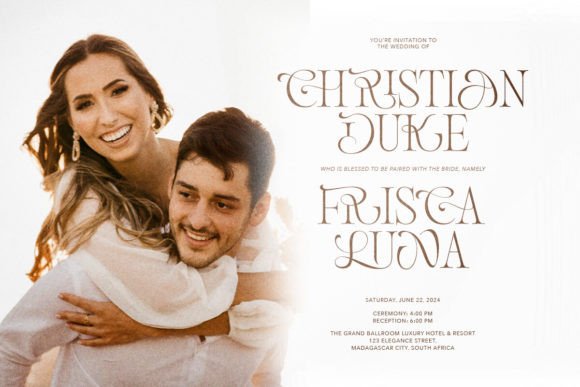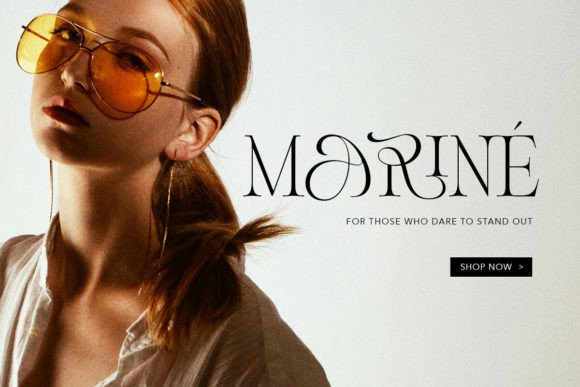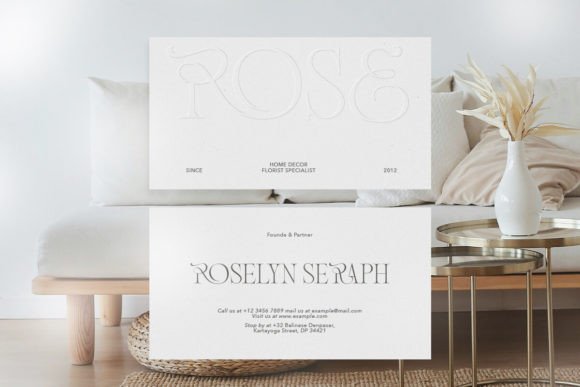
Introduction to Luxury Charm Font
As a designer, you know that finding the perfect font can be the difference between a project that shines and one that falls flat. Remember that moment when you stumbled upon the perfect typography for a client’s logo, and it elevated their entire brand? That’s the magic of a well-chosen font. For your next creative project, consider the Luxury Charm Font – a stunning serif font that exudes luxury and sophistication.
What sets Luxury Charm Font apart is its unique blend of classic and modern elements. The all-caps serif uppercase letters are timeless, while the stylish modern serif lowercase letters add a touch of elegance. Plus, the beautiful ligatures that combine two characters between lowercase and uppercase add a level of intricacy and delicacy that’s hard to find in other fonts. Whether you’re working on a logo, branding, or even a wedding invitation, Luxury Charm Font is sure to impress.
Key Features of Luxury Charm Font
- Unique blend of elegance and sophistication, making it perfect for high-end creative projects.
- High-quality design with intricate details and ornate flourishes, ideal for luxury branding and packaging.
- Designed to evoke a sense of luxury and sophistication, making it perfect for high-end design projects.
Honest Review: Luxury Charm Font
I recently came across the Luxury Charm Font, and I was excited to give it a try for my next creative project. The font is a high-quality design resource that’s perfect for adding a touch of elegance to any design.
What works well: ✨ The Luxury Charm Font has a transparent background, which makes it easy to customize and integrate into any design. The font itself is beautifully crafted, with intricate details that add a level of sophistication to any text. The free download is also a major plus, making it accessible to designers of all levels.
Here are some key features that I love about the Luxury Charm Font:
- Beautifully crafted, high-quality design
- Perfect for creative projects that require a touch of elegance
⚠️ Limitations: One potential issue I’ve encountered is that the font may not be compatible with all operating systems or software. Additionally, the font’s intricacies may make it difficult to read in certain contexts.
Overall, I’m impressed with the Luxury Charm Font. It’s a great addition to any designer’s toolkit, and I’d highly recommend it for any creative project that requires a touch of luxury and sophistication.
The Luxury Charm Font is a high-quality design resource that can add a touch of elegance to any creative project. With its unique style and sophisticated feel, it’s perfect for designers looking to create a luxurious and refined aesthetic.
Getting the Most Out of Luxury Charm Font
To get the most out of the Luxury Charm Font, try using it with a transparent background to create a sense of depth and dimension. You can also experiment with different font sizes and styles to add visual interest to your design.
The Luxury Charm Font is perfect for a variety of design projects, including:
- High-end product packaging
- Corporate branding and marketing materials